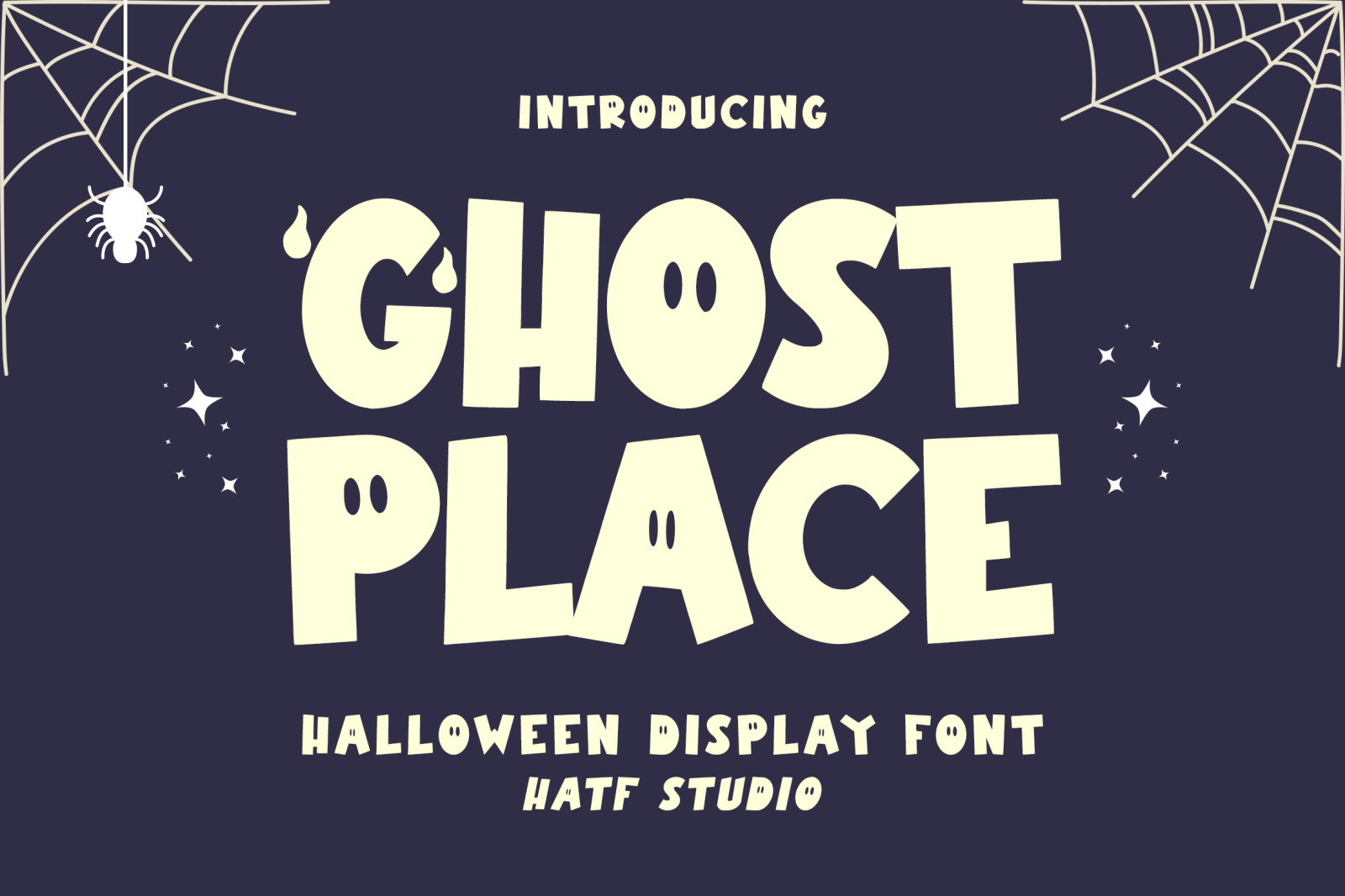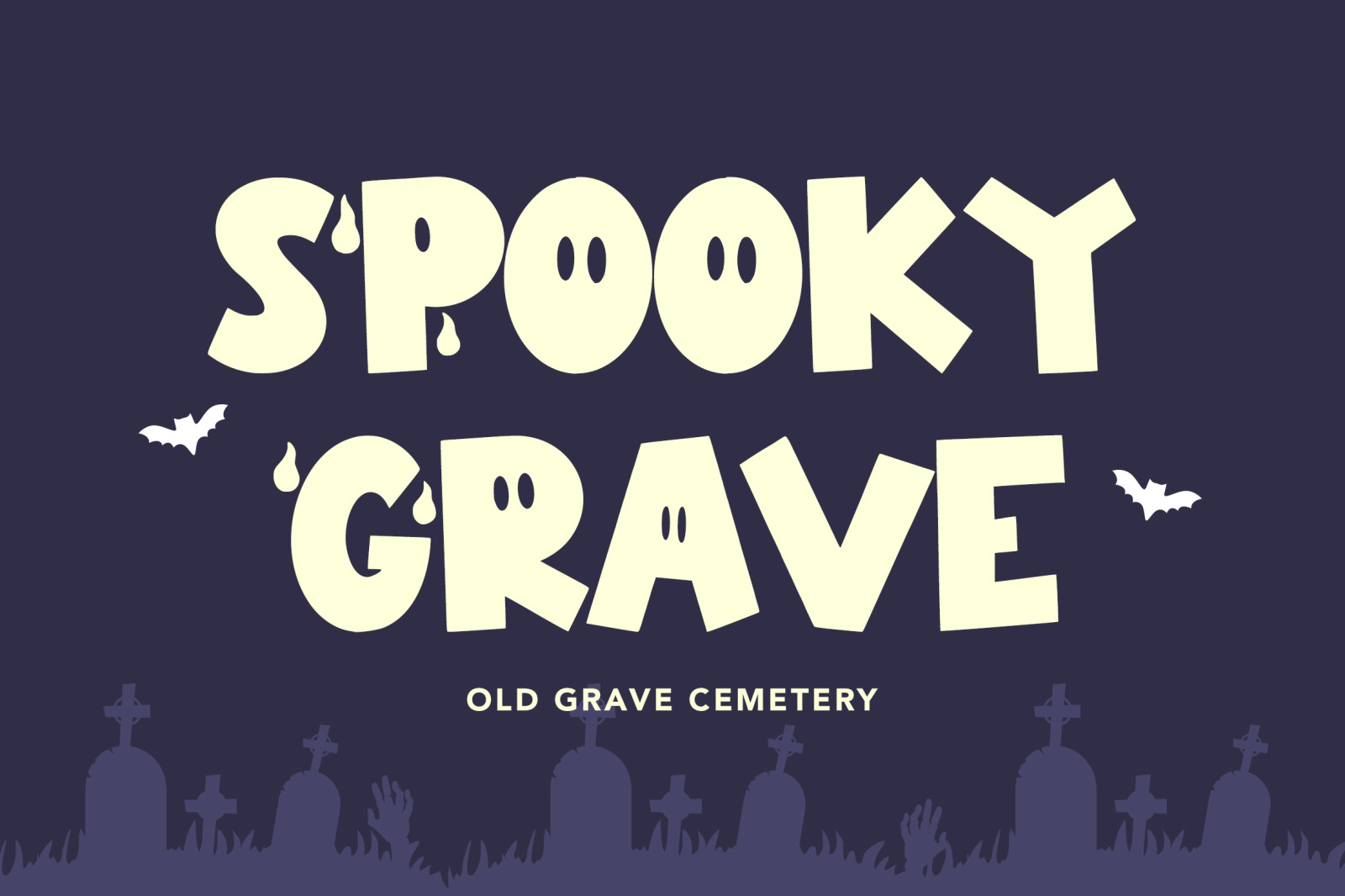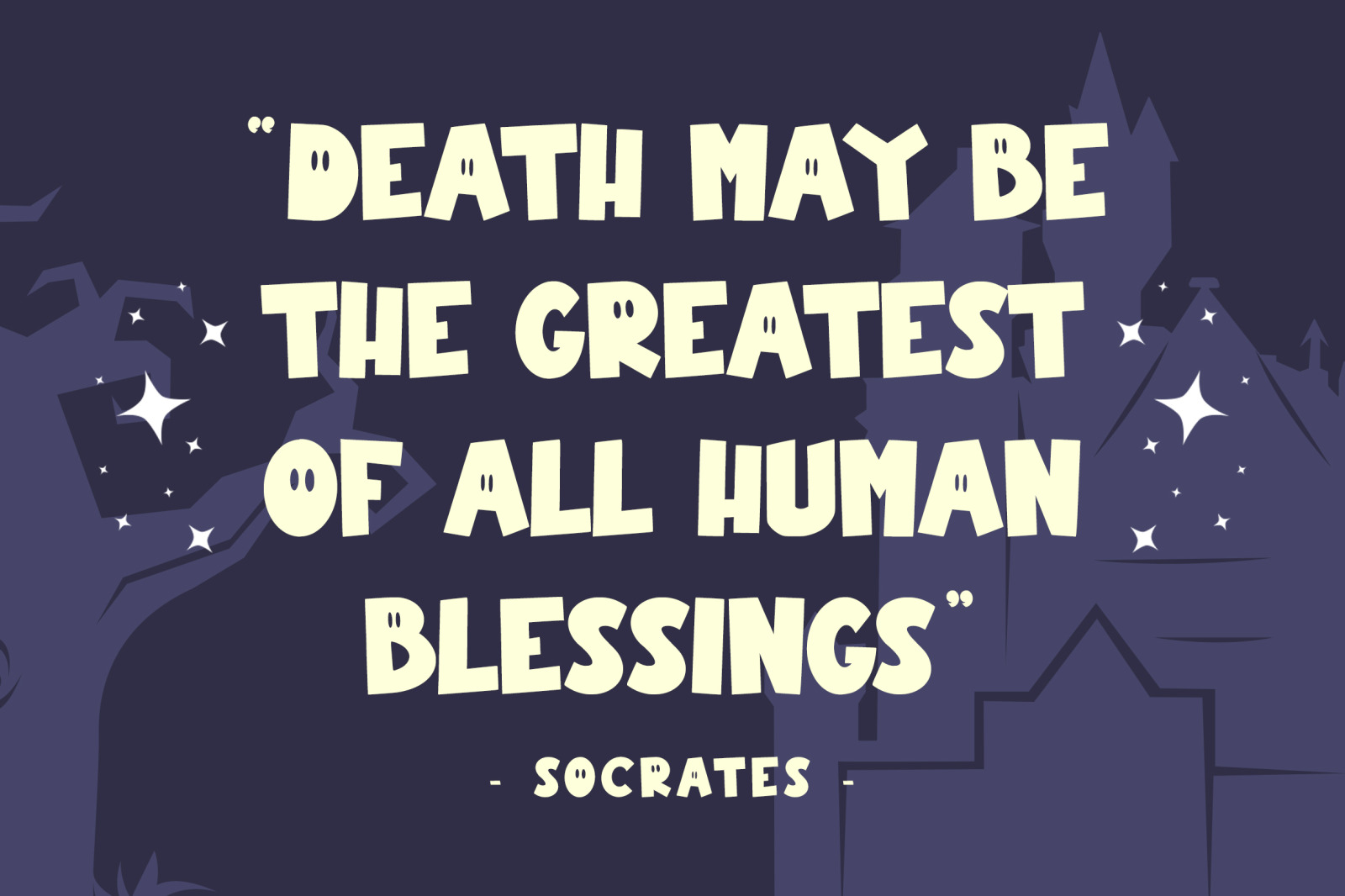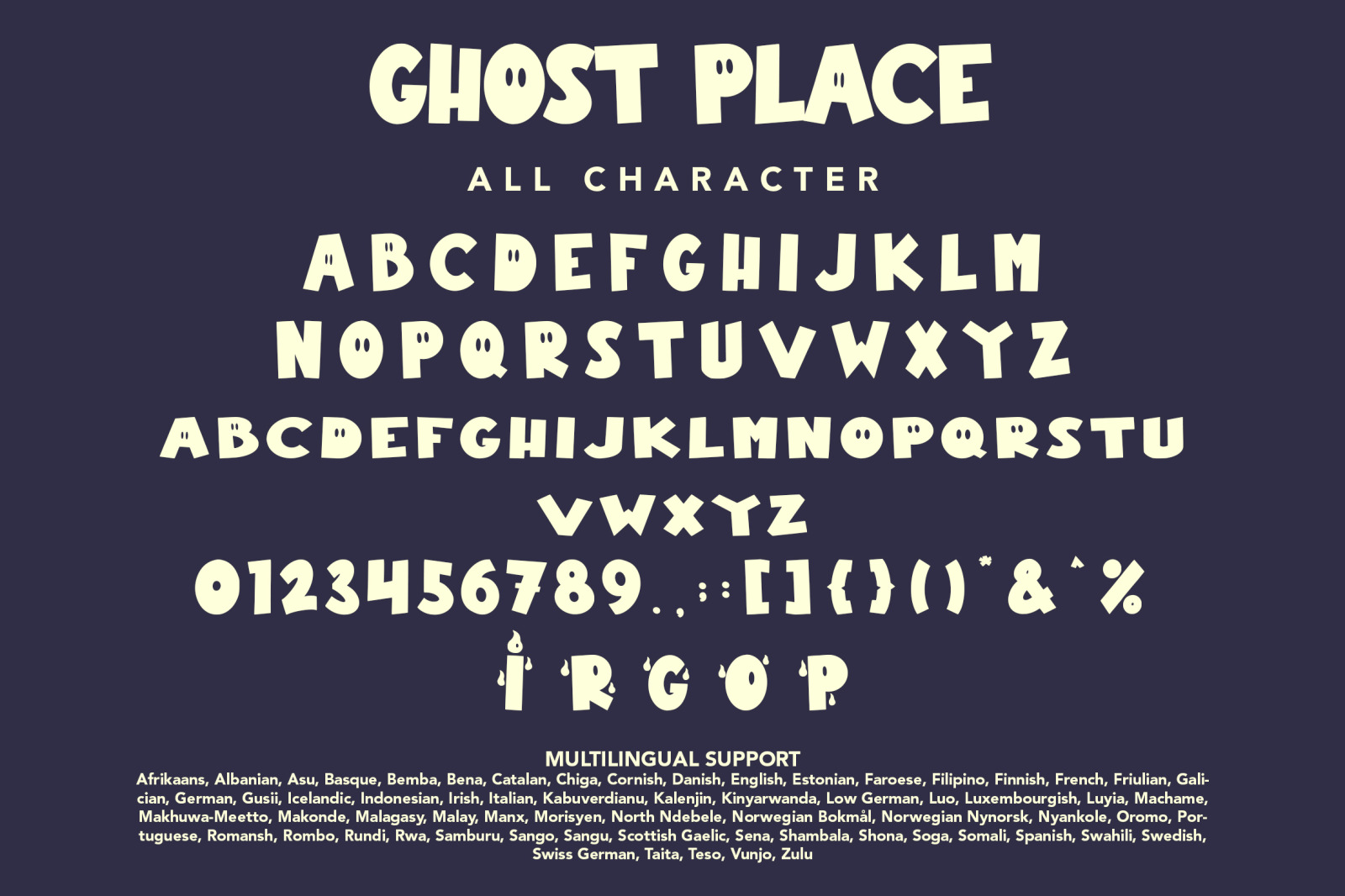
Ghost Place Font
Is a halloween display font with distinctive handwritten characters perfect for branding projects, logos, clothing designs, media posts, advertisements, product packaging, product designs, labels, photography, watermarks, invitations, stationery, and any project who need handwritten dishes.
Feature :
* Symbol
* Number
* Punctuation
* Multilingual support